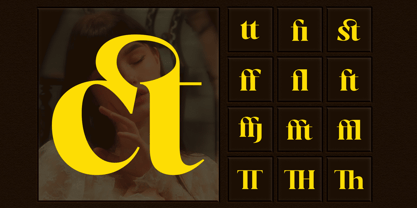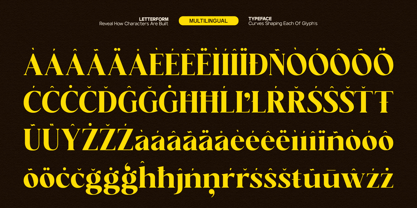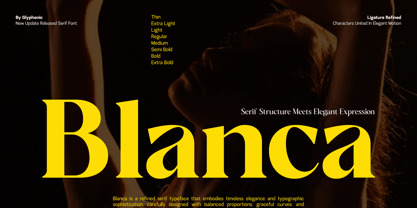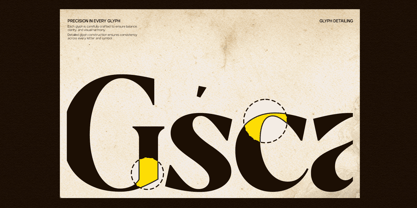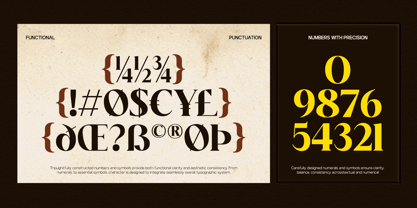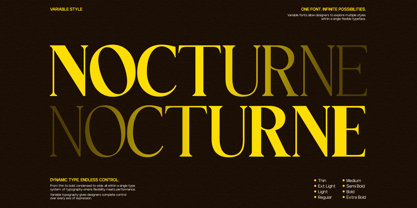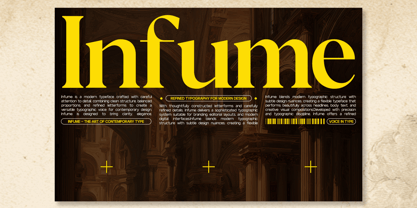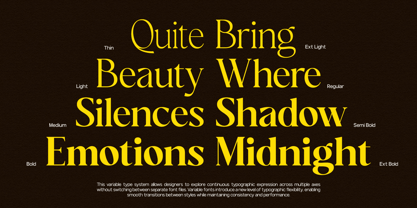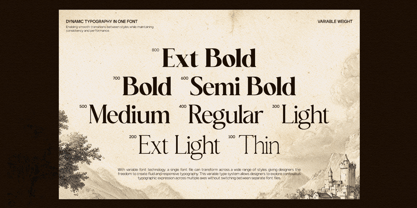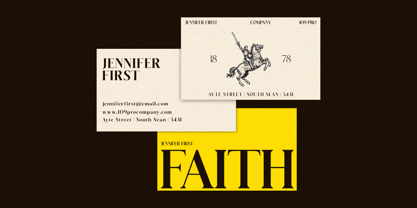
GC Blanca
The GC Blanca Font Family was designed by Muhammad Hafiizh Solana and published by Onyx Studio. GC Blanca contains 8 styles and family package options. More about this family
GC Blanca – Serif Elegant Character is a refined serif typeface that embodies timeless elegance and expressive sophistication. Designed with balanced proportions, graceful curves, and high-contrast strokes, Blanca delivers a luxurious typographic voice that feels both classic and contemporary. With its elegant structure and smooth transitions—as seen in its flowing letterforms and refined details—**GC Blanca** creates a sense of harmony and visual beauty. The presence of delicate ligatures and carefully crafted shapes enhances its expressive character, making it ideal for designs that demand elegance and emotional depth. Crafted to perform beautifully across digital and print media, GC Blanca shines in editorial layouts, fashion branding, luxury packaging, and modern visual compositions. Its versatile weight range allows designers to explore hierarchy—from light, airy text to bold, impactful headlines—while maintaining consistency and readability. Whether used for sophisticated headlines, refined branding, or artistic layouts, GC Blanca brings elegance, clarity, and expressive serif character to your typography. Features: - Variable Font (Thin – Extra Bold) - Elegant Serif Construction - Uppercase & Lowercase - Numbers & Punctuation - Refined Ligatures - Multilingual Support (170+ Languages) GC Blanca — where serif structure meets elegant expression.
Designers: Muhammad Hafiizh Solana
Foundry: Onyx Studio